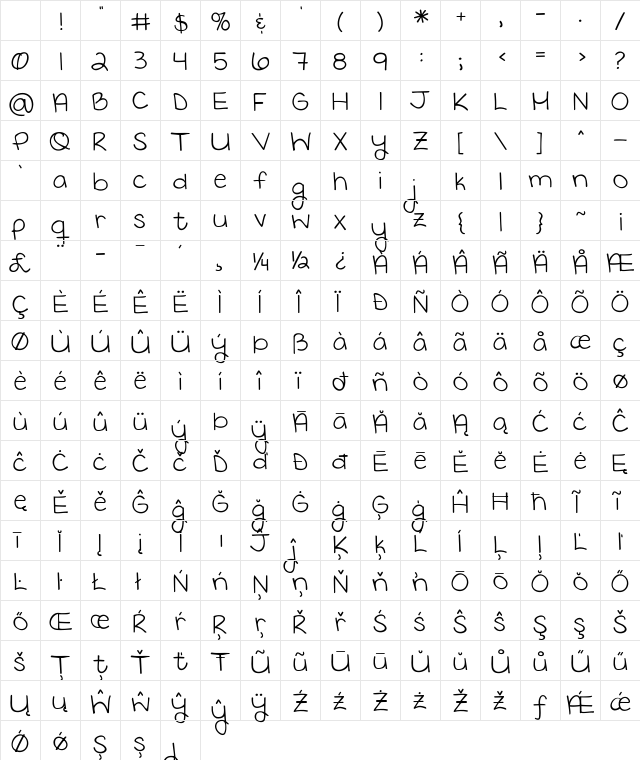
Complete KG Keep Your Head Up Regular glyph index. Displaying only characters natively supported by KG Keep Your Head Up Regular font.
KG Keep Your Head Up is a composed and adaptable typeface that performs quietly and consistently across a wide range of design contexts.